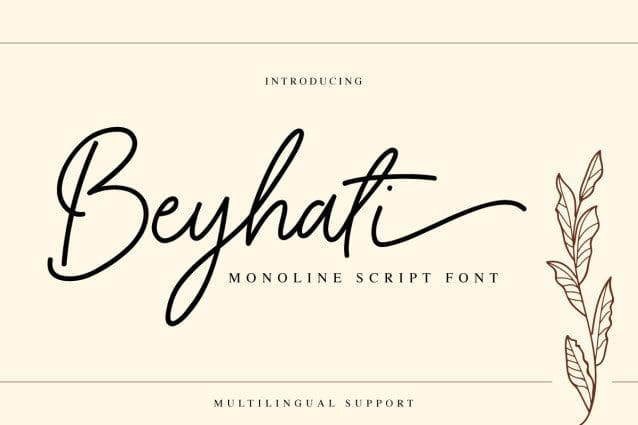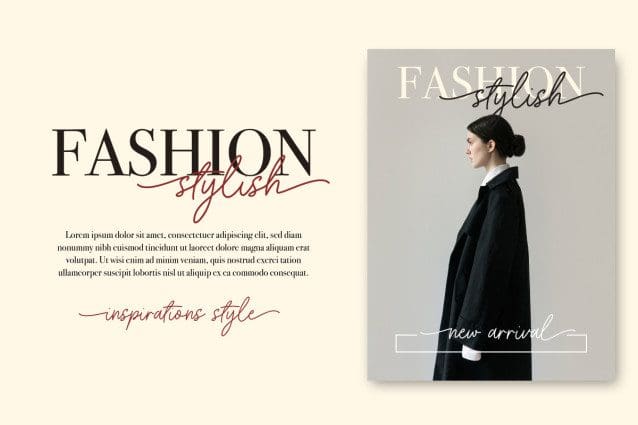
Beyhati Monoline Script Font
Beyhati Monoline Script Font is a stylish monoline script font designed to elevate your creative projects. Perfect for branding, logos, invitations, and social media designs, its smooth strokes add elegance and warmth to your work. Whether you’re crafting minimalist wedding stationery or creating standout product packaging, Beyhati brings charm and sophistication to every design.